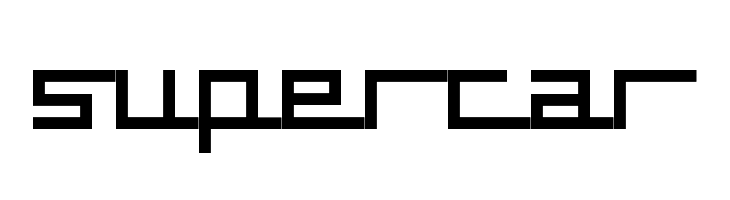
A modern, light, and italic sans-serif font with a sleek and dynamic design.
A grunge-style serif font with an inline design and vintage texture.
A bold, italic font with a modern and sporty style.
A modern, geometric outline font with clean lines and a structured appearance.
A playful, bold font with rounded, whimsical characters.
A playful handwritten font with fluid, flowing letterforms.
A bold, gothic-inspired display font with sharp, elongated features.
A decorative script font with elegant, flowing lines and artistic flair.
A playful, handwritten font with smooth, flowing lines and a consistent stroke width.
A playful, hand-drawn font with rounded edges and a whimsical style.
A bold, italicized font with a modern, geometric style.
A bold, expressive handwritten script font with dynamic curves.
A futuristic, geometric font with bold, condensed letterforms and uniform stroke thickness.
A playful, bold font with thick, rounded strokes and a cartoonish style.
A bold, playful handwritten font with rounded, consistent letterforms.
A whimsical, artistic font with flowing, cursive-like strokes and playful loops.
A bold, gothic-style blackletter font with sharp angles and intricate details.
A cursive, handwritten-style font with elegant loops and swashes.
A bold, rounded font with a playful and chunky style.
A sleek, modern italic font with a dynamic and geometric design.
A bold, italic font with sharp, angular lines and a futuristic style.
A casual, playful handwritten font with fluid, slightly irregular strokes.
A dynamic and elegant script font with fluid, handwritten characteristics.
A bold, energetic font with rounded strokes and a playful style.
A bold, playful handwritten font with rounded, irregular characters.
A playful, cursive-like script font with interconnected letters and moderate stroke thickness.
A modern, pixelated font with a digital, futuristic style.
A bold, futuristic font with sharp angles and a dynamic slant.
A bold, brush-like font with an expressive and artistic style.
Tall, condensed, wavy hand-drawn display font with playful distortion.
A bold, expressive handwritten font with dynamic strokes and modern style.
A flowing, elegant script font with a sophisticated cursive style.
A bold, italic font with a dynamic and energetic style.
A dynamic and expressive script font with fluid, cursive strokes.
设计师偏爱 Exo 2 Light Italic, Castile Inline Grunge, Clothingline, Liong-Italic and Nordin Free Outline,因为其造型干净、适用范围广—— 从品牌识别到落地页、海报都能胜任。